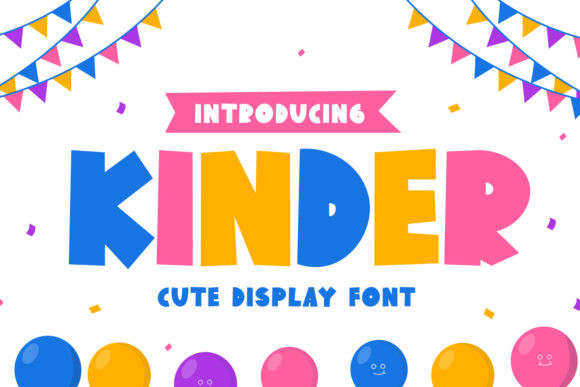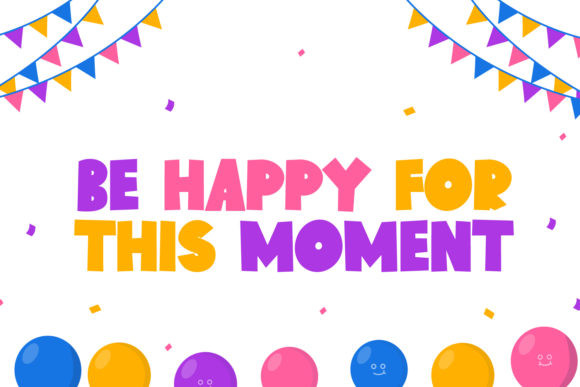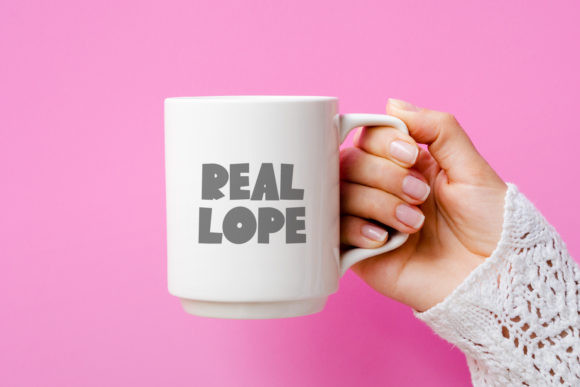
Kinder Font
Kinder is a cartoon like and cute display font. It embodies playfulness and authenticity and is the perfect choice for any children activity or school project. Add this chunky lettered font to your designs and notice how it makes them come alive!